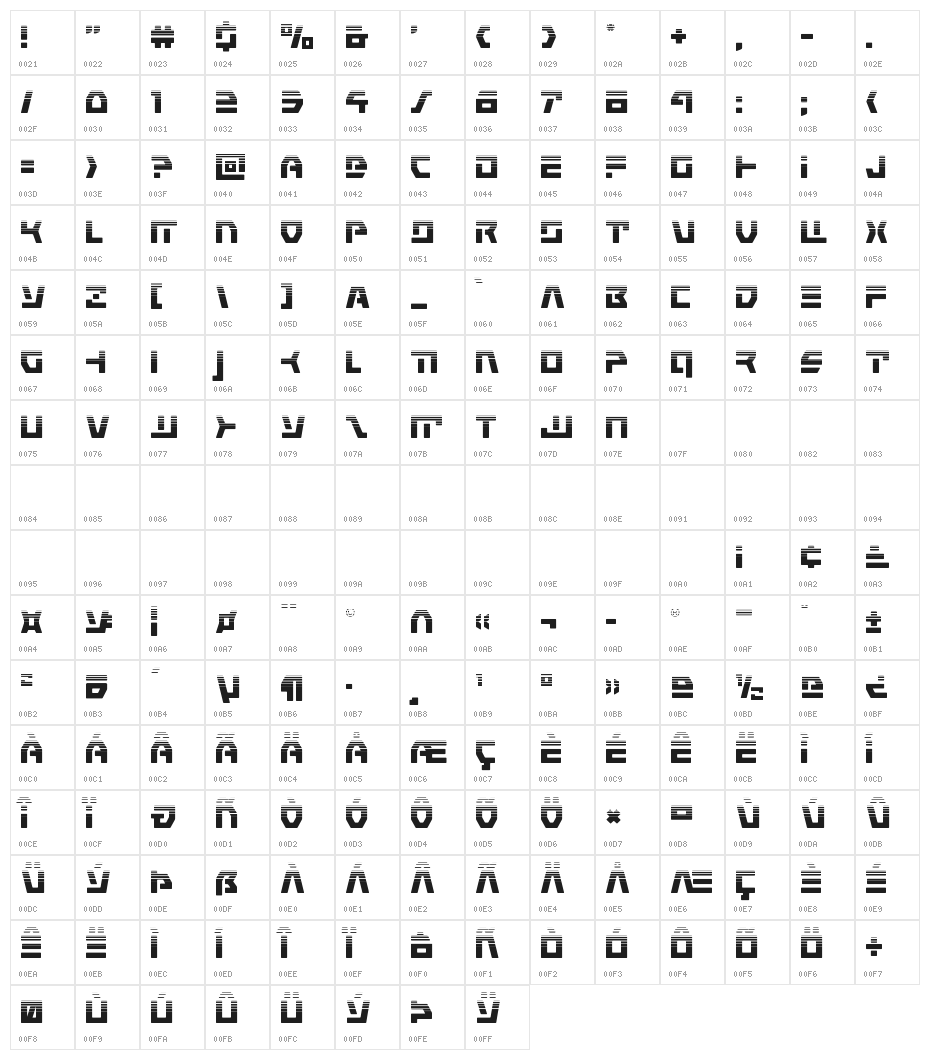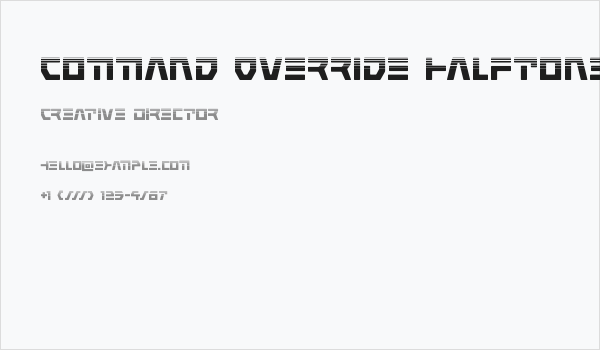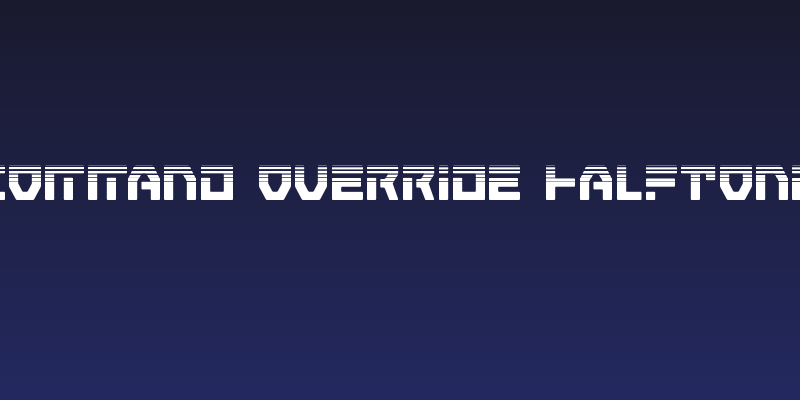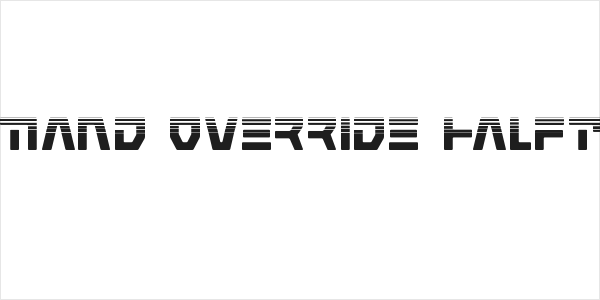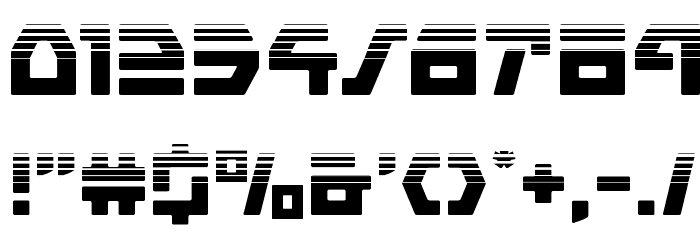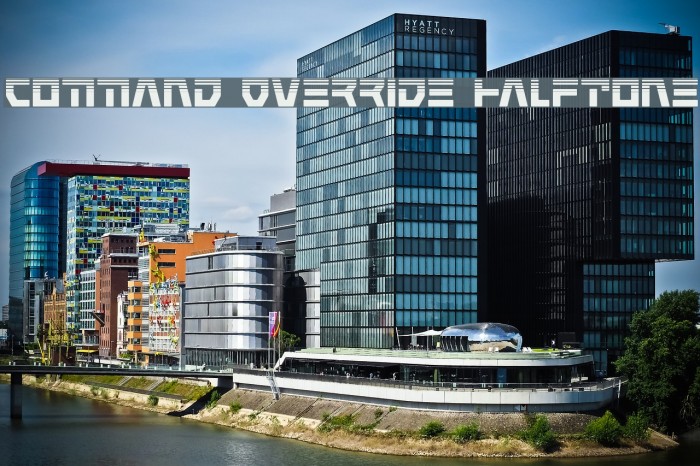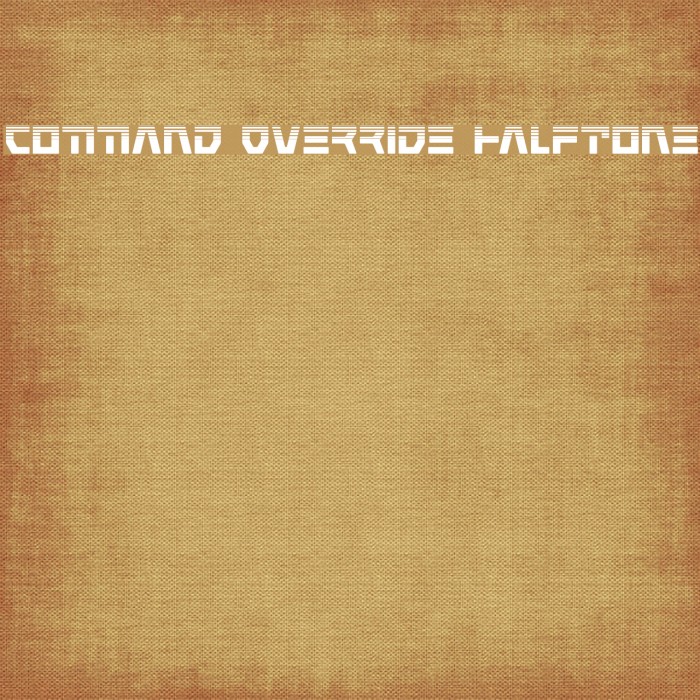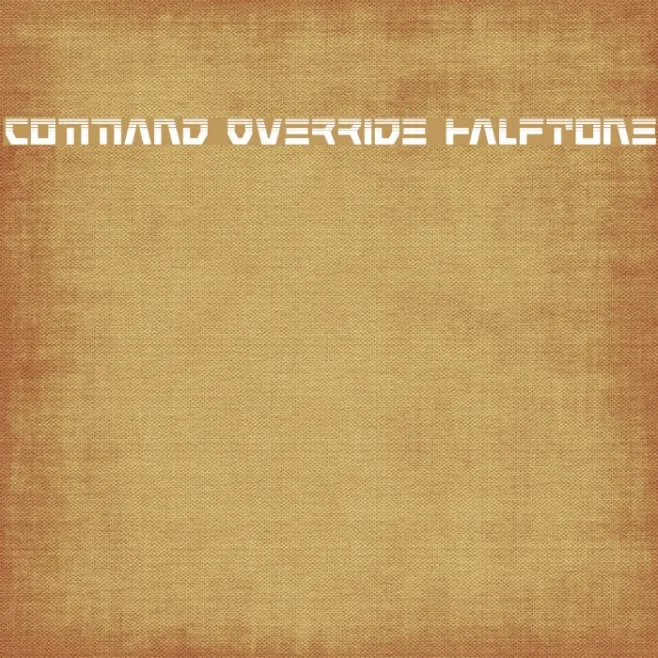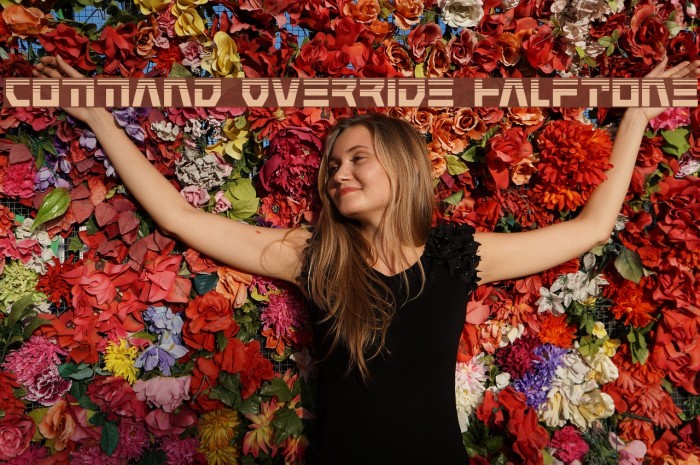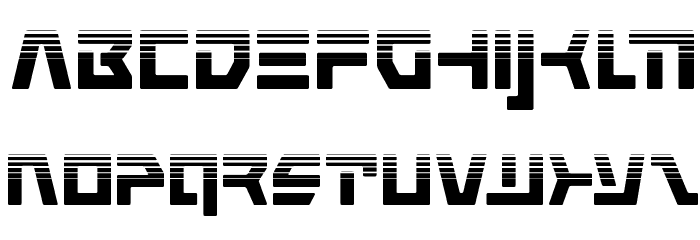
Command Override Halftone Font
Command Override Halftone Description
This font features a bold, futuristic design with a halftone effect that gives it a unique, digital appearance. The characters are constructed with solid black bases and horizontal lines that create a sense of movement and depth. The uppercase and lowercase letters maintain a consistent style, with geometric shapes and sharp angles. The numbers and special characters follow the same design principles, ensuring a cohesive look across all elements. This font is ideal for projects that require a modern, tech-inspired aesthetic.
| Proposed Projects | Ideal for tech-related branding, digital art, video game titles, and sci-fi themed projects. |